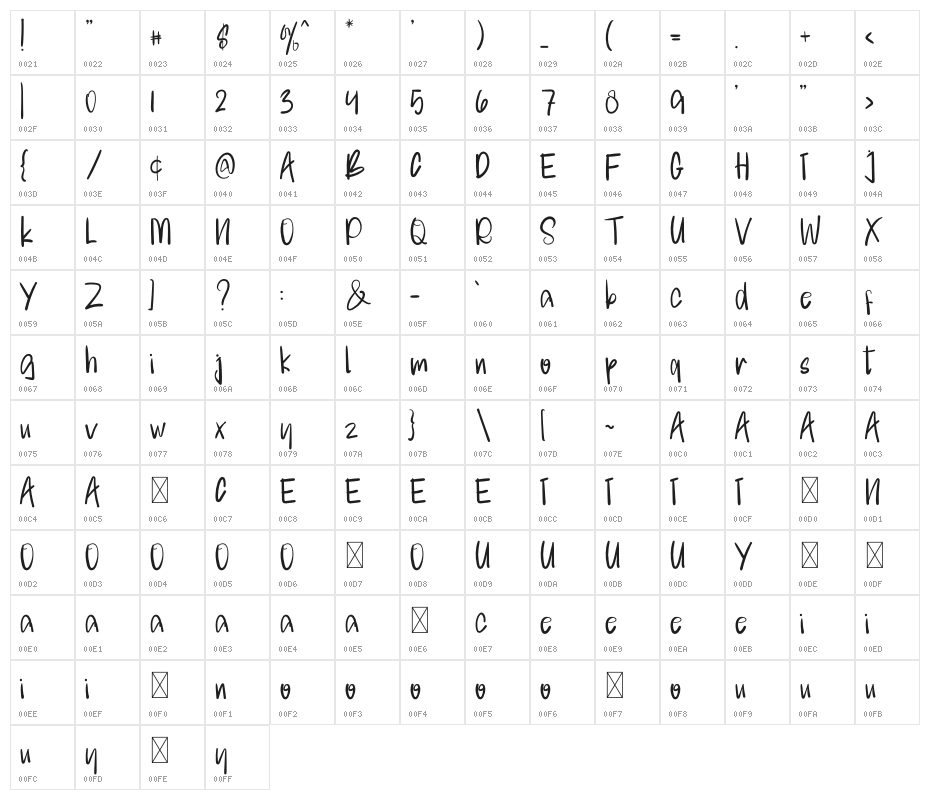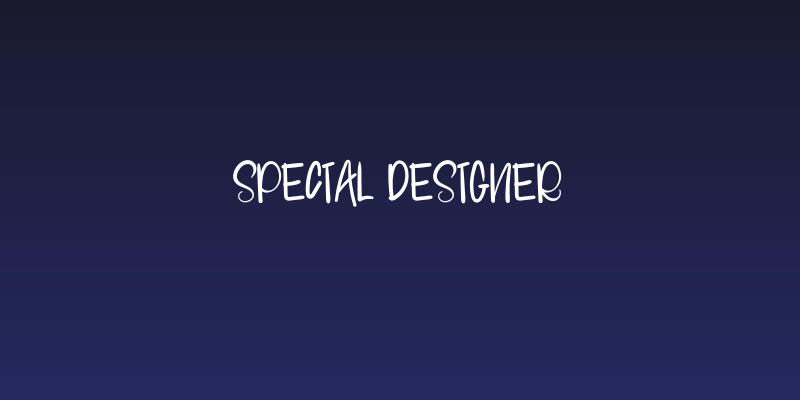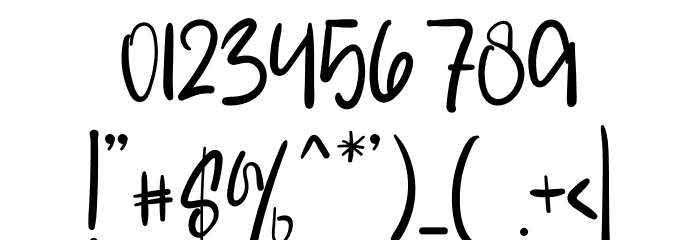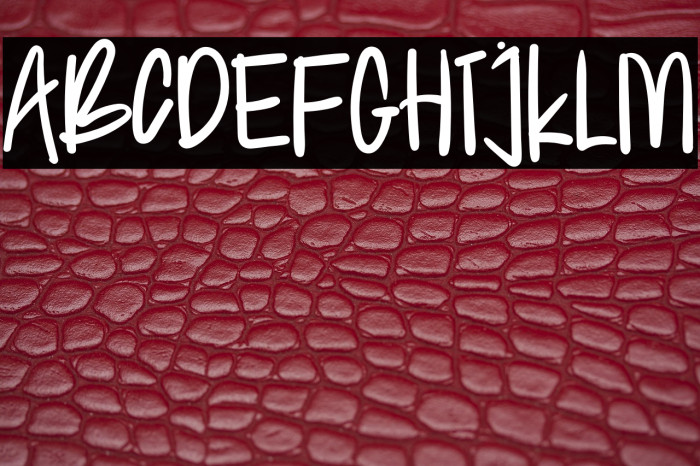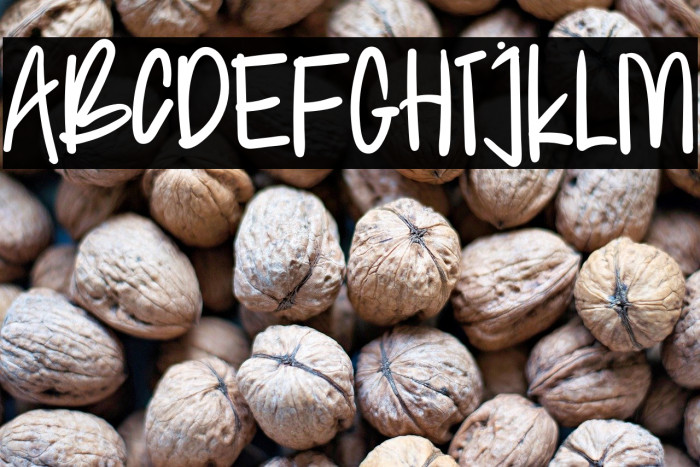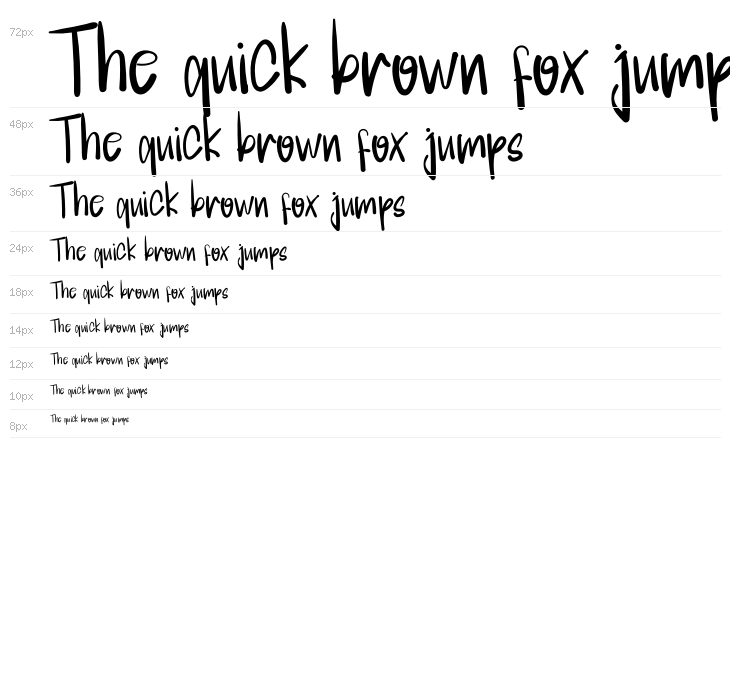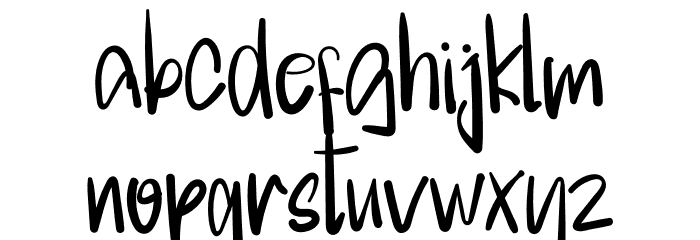
Special Designer Font
Special Designer Description
This font features a playful and casual handwritten style, characterized by its smooth, flowing lines and slightly irregular shapes. The uppercase letters are bold and prominent, while the lowercase letters maintain a consistent rhythm with a touch of whimsy. The numerals are easily readable, matching the overall aesthetic of the alphabet. Special characters are creatively designed, adding to the font's unique personality. The font's informal and friendly appearance makes it suitable for projects that require a personal touch.
| Use Case | Logos, Headlines, Informal text |
| Proposed Projects | Ideal for greeting cards, invitations, personal branding, social media graphics, and children's books. |